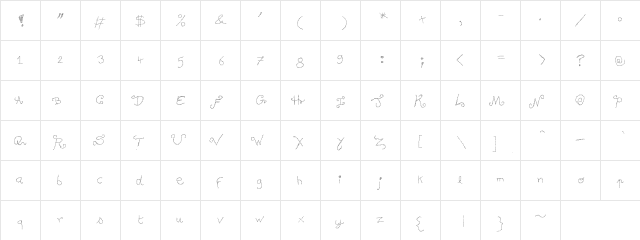
degueulasse Regular Free Font
degueulasse Regular
Designer: heller etienne
Design Context for degueulasse
degueulasse is a composed and adaptable typeface that performs quietly and consistently across a wide range of design contexts.